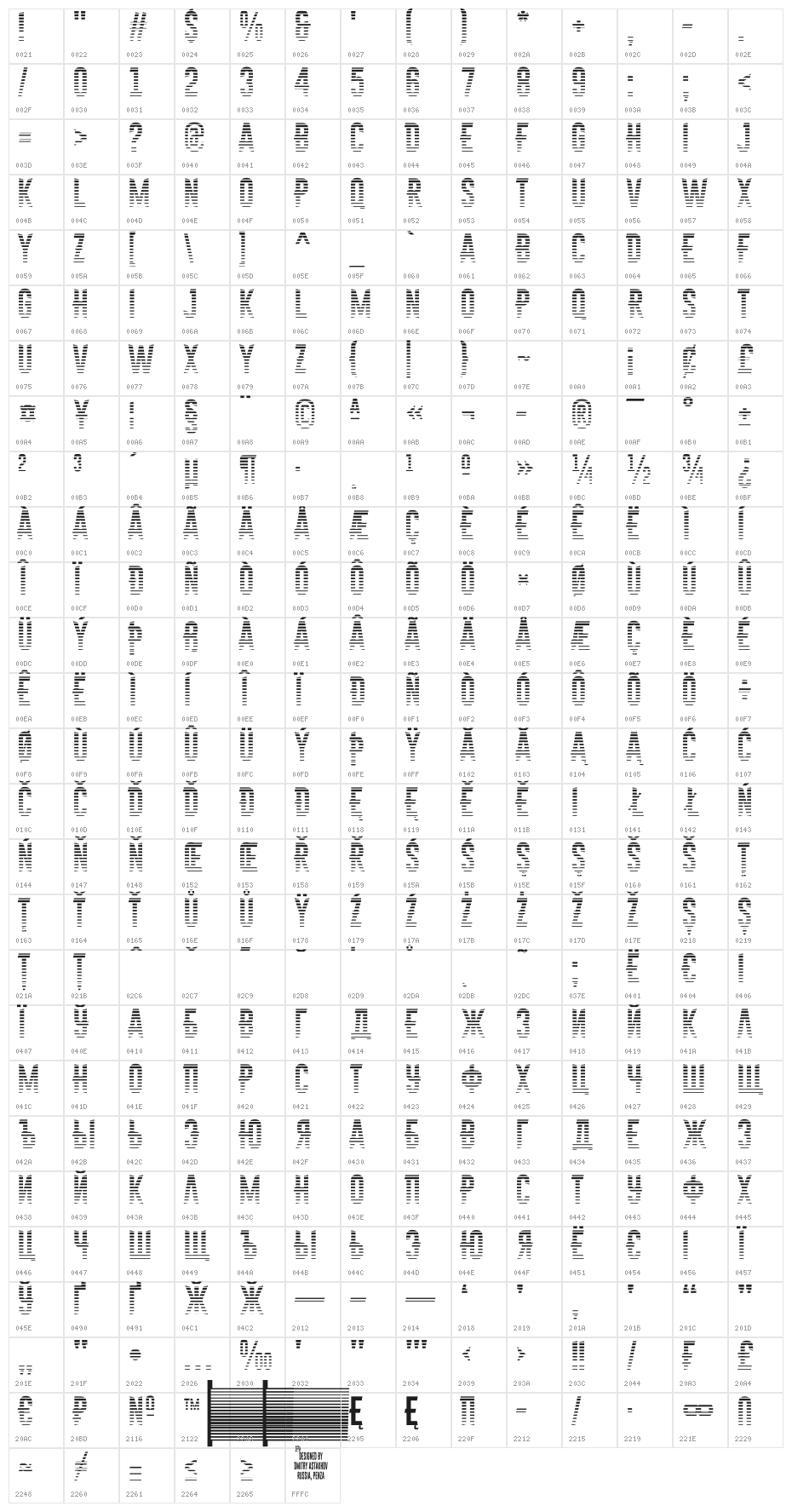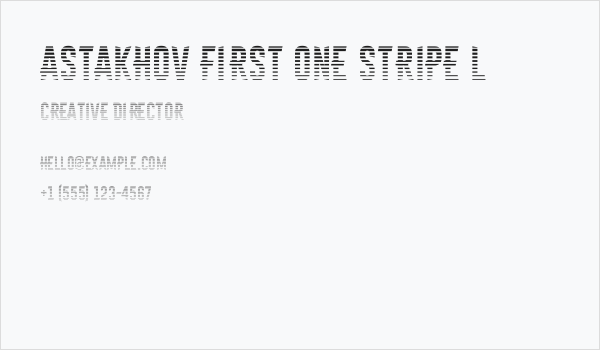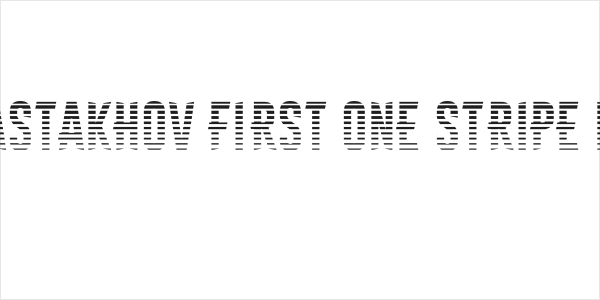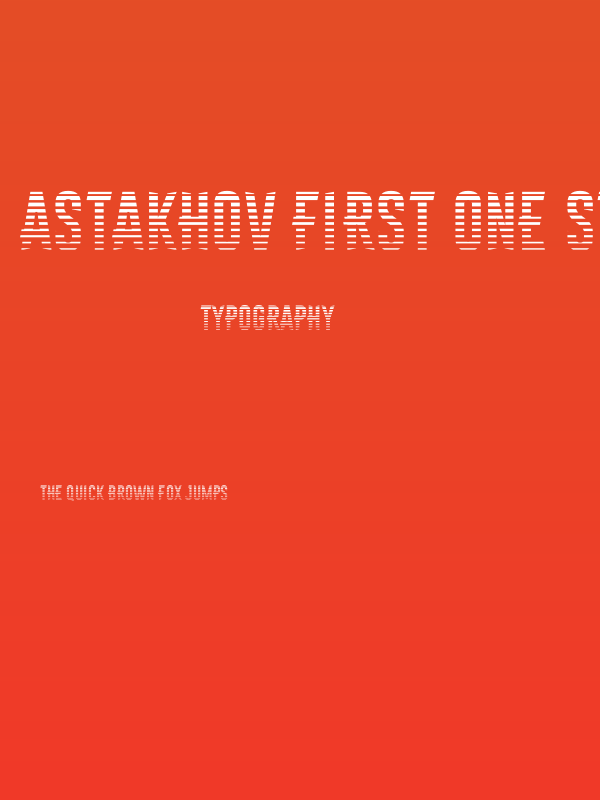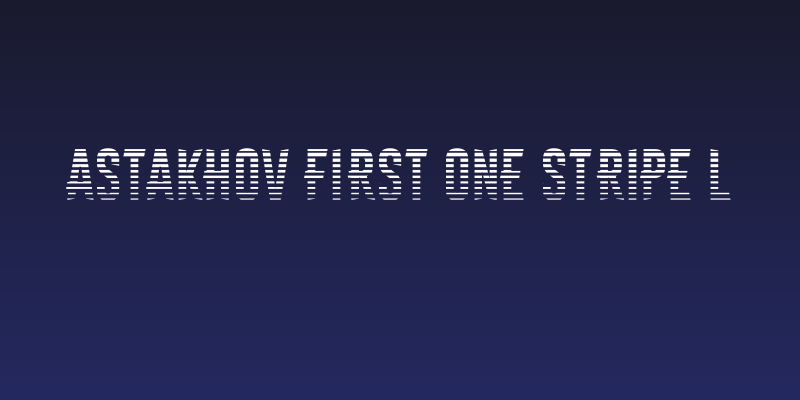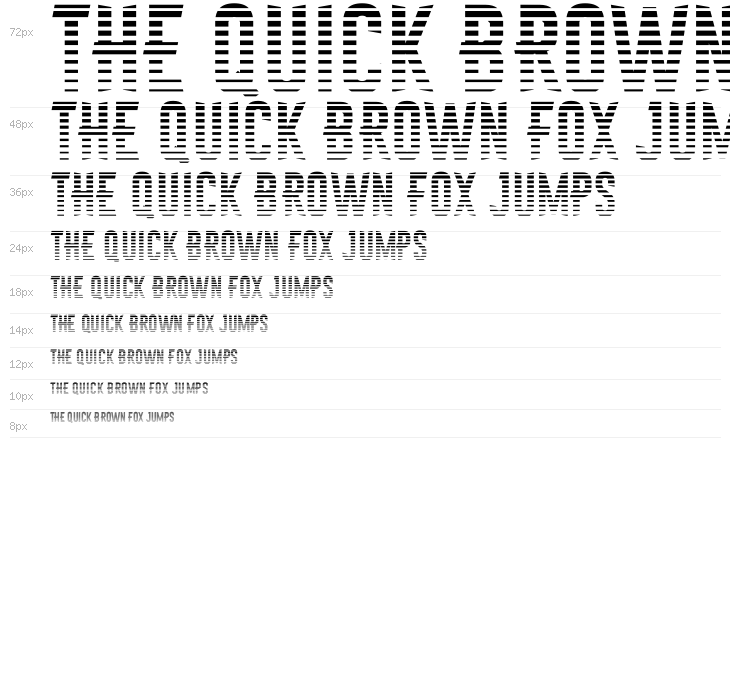
Astakhov First One Stripe L Font
Astakhov First One Stripe L Description
This font features a unique striped pattern across each character, creating a bold and eye-catching design. The uppercase letters are evenly spaced with horizontal lines cutting through them, giving a modern and dynamic appearance. The numerals and special characters follow the same striped theme, maintaining consistency throughout the set. This font is perfect for projects that require a strong visual impact and a contemporary feel. The design is clean yet striking, making it suitable for various creative applications.